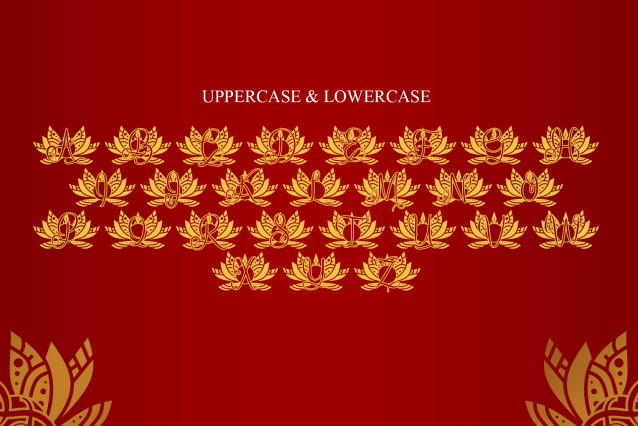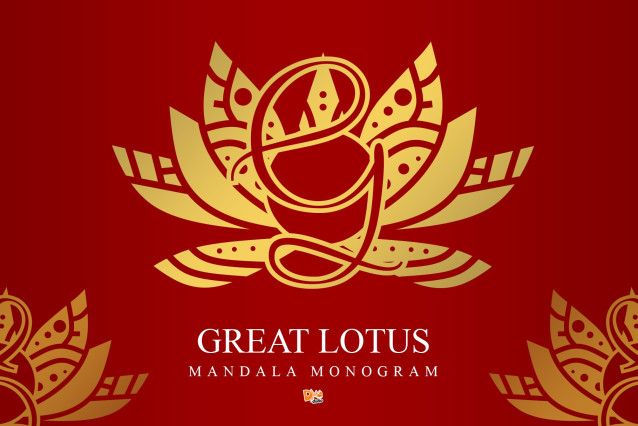
Great Lotus Mandala Monogram Font
Great Lotus Mandala Monogram is a beautifully crafted typeface that features bold, majestic lotus motifs merged with intricate mandala patterns. This ornamental monogram font evokes a sense of spiritual grandeur and timeless elegance, perfect for premium branding, meditation journals, artistic invitations, and high-end packaging designs.